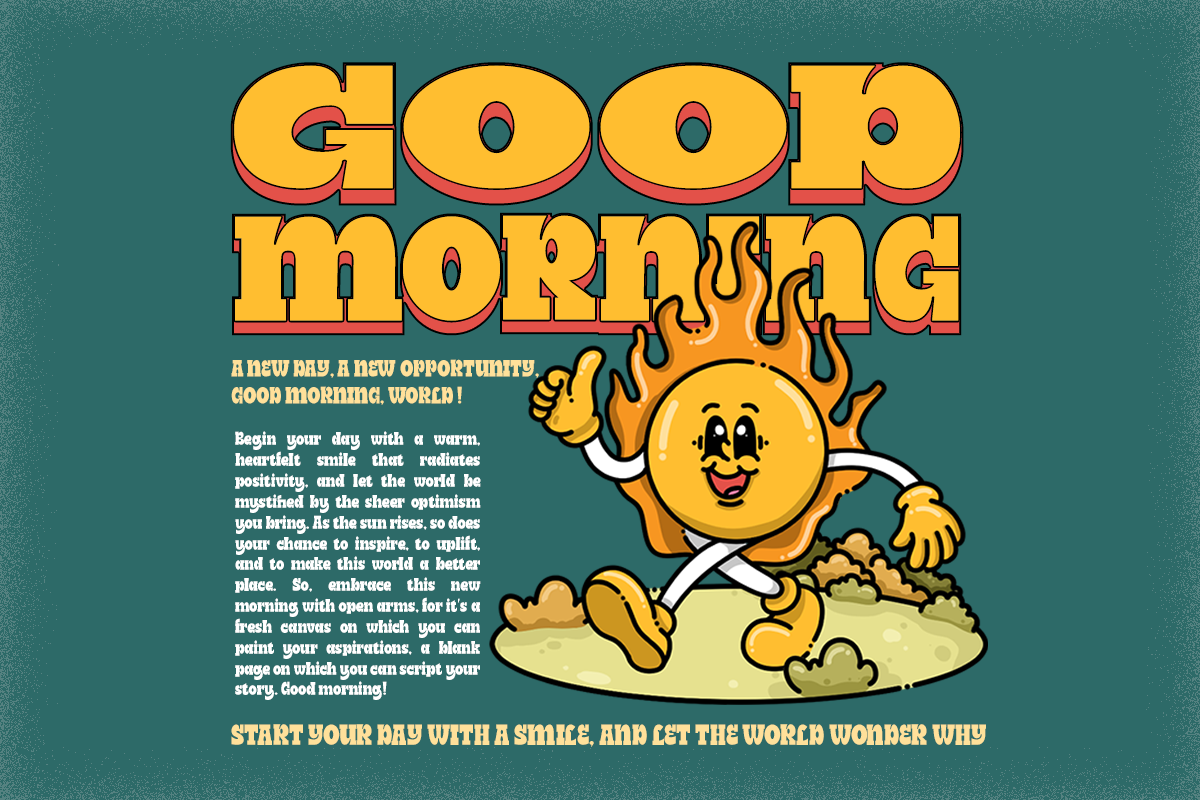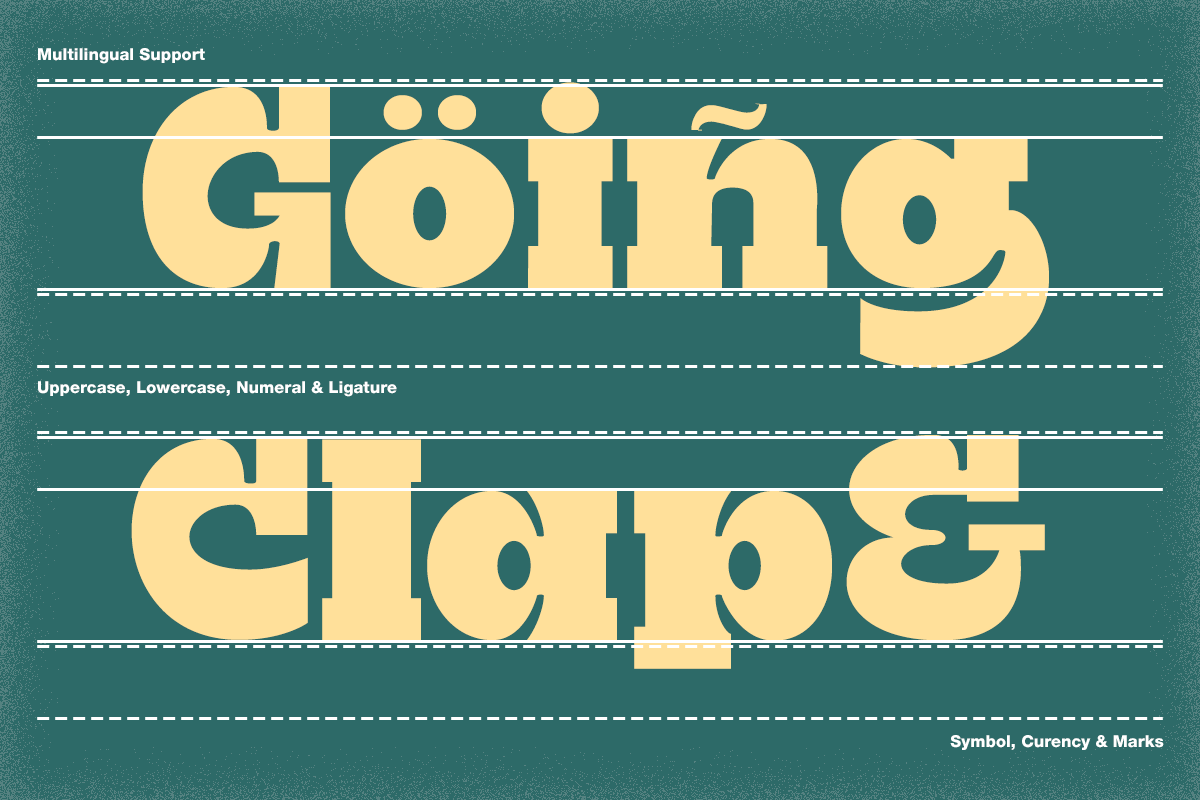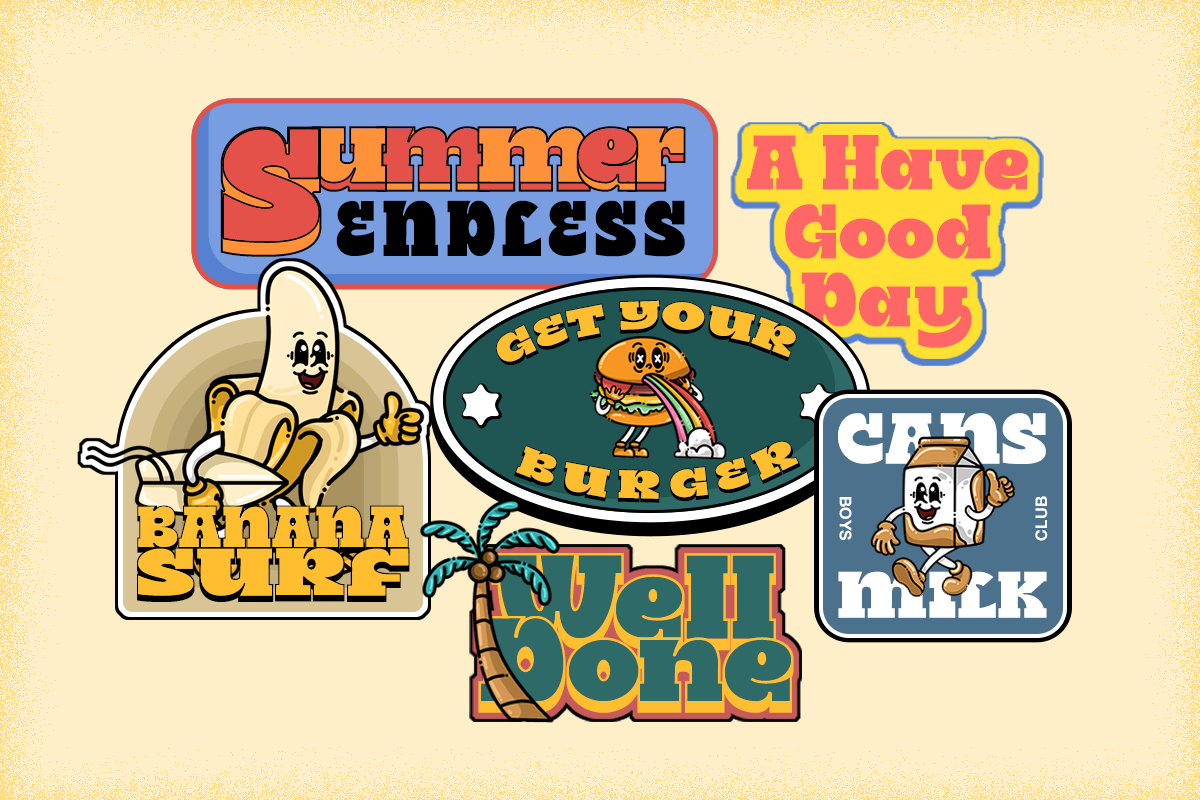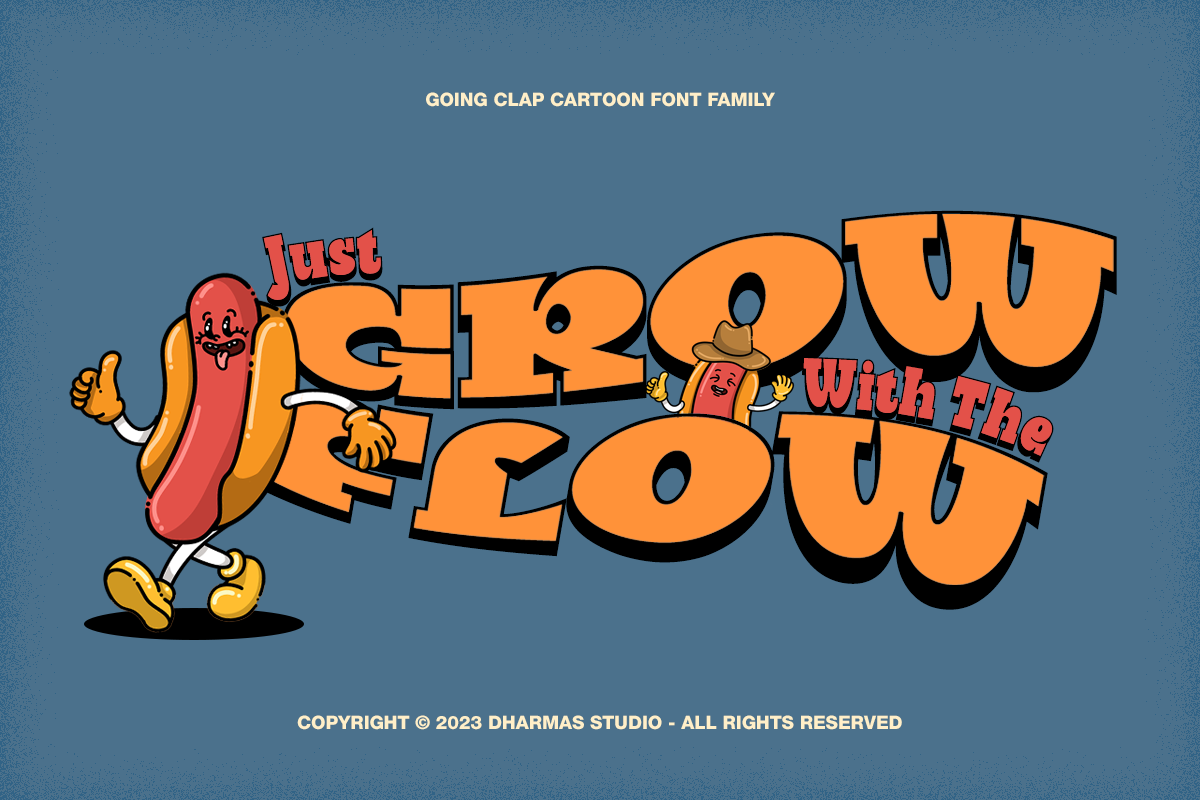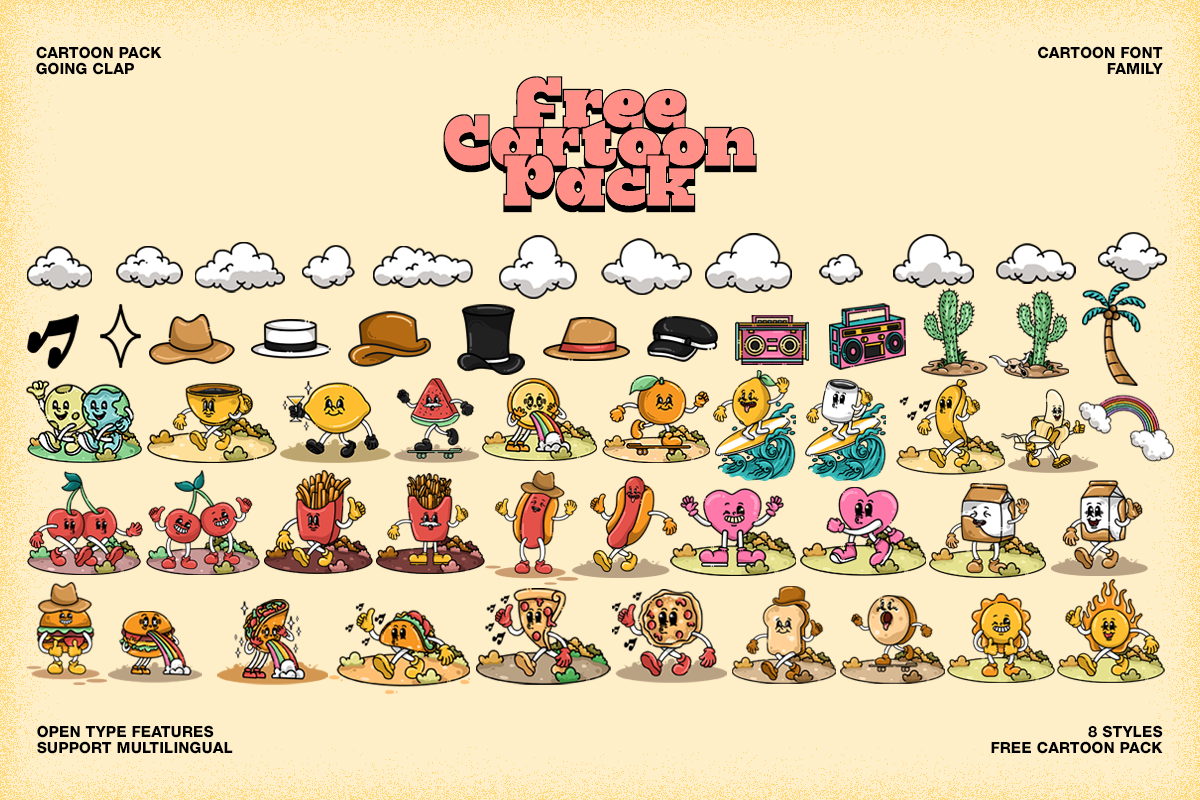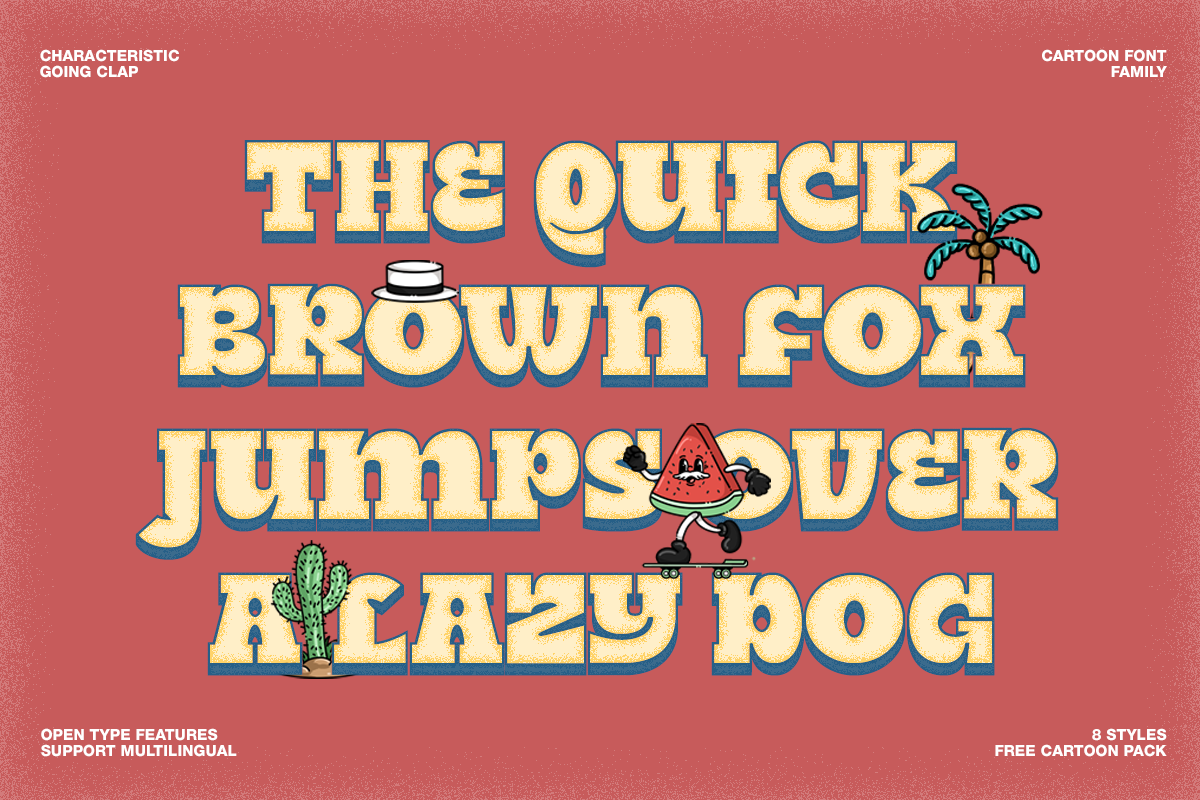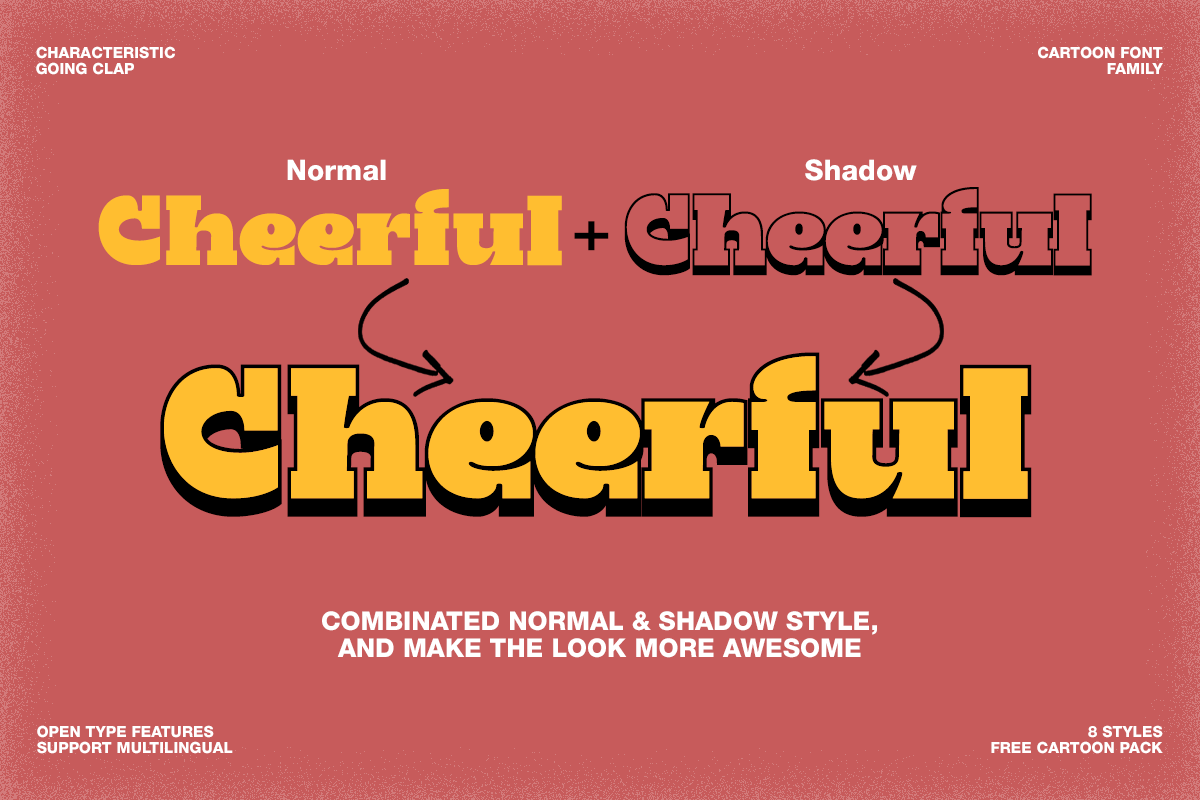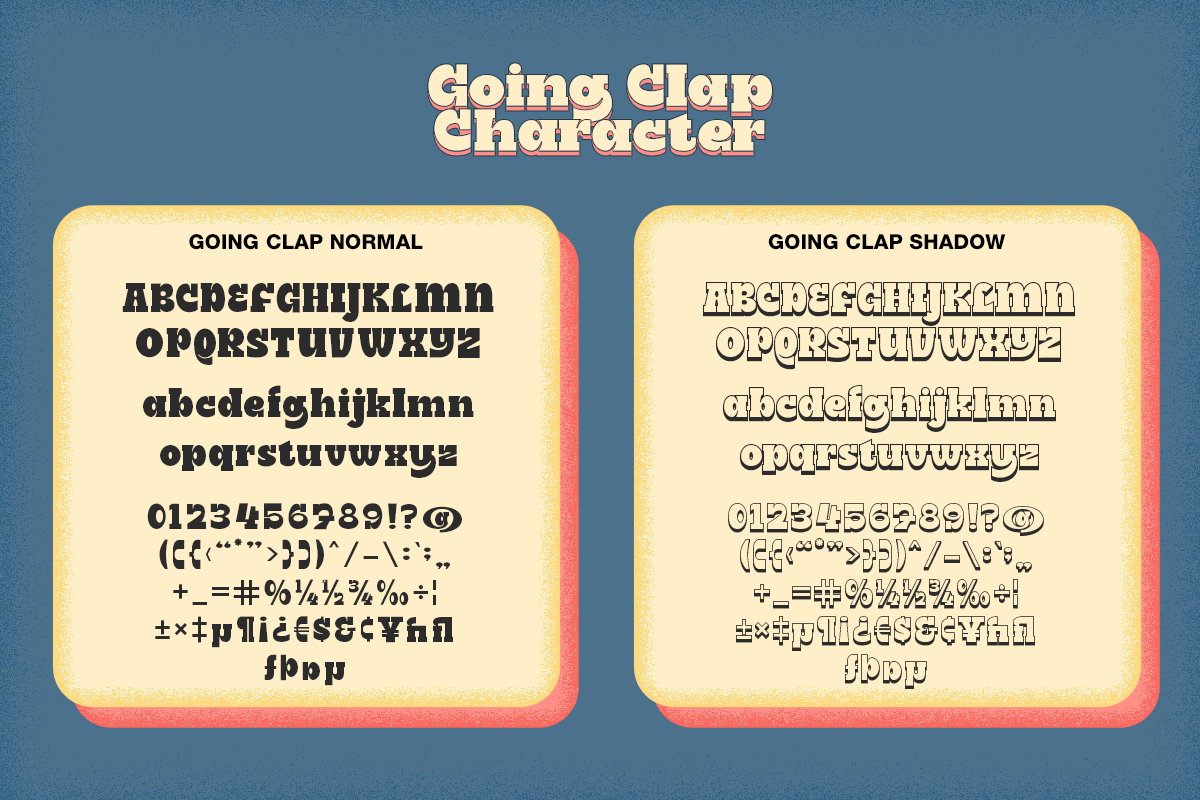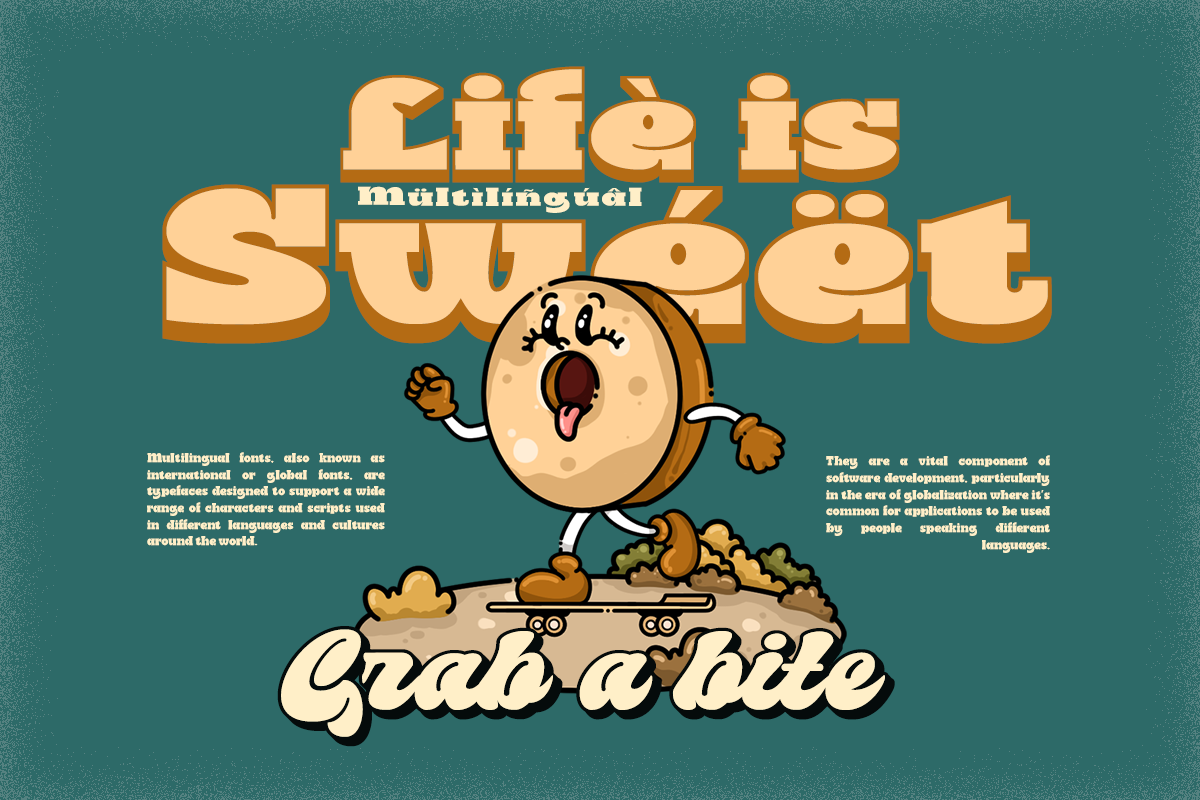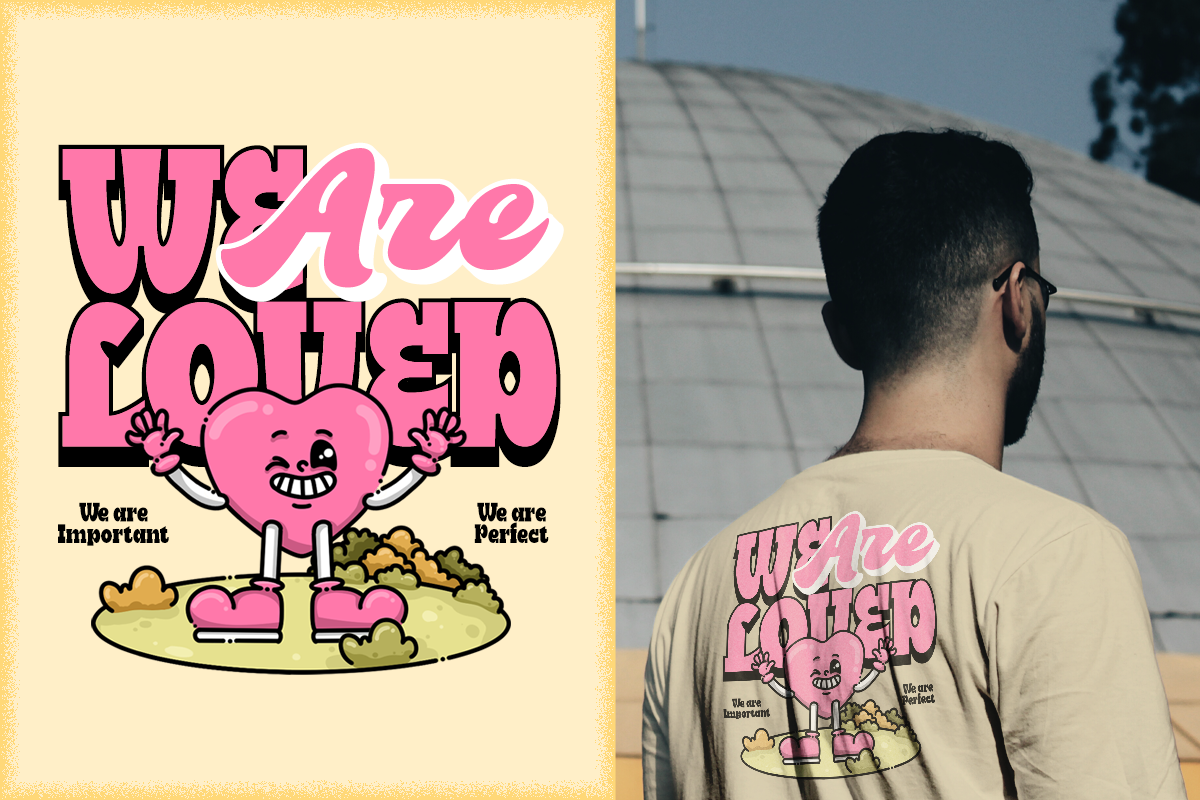
Going Clap - Free Bonus Assets
Introducing Going Clap, the font that's all about bold and nostalgic vibes!
This chunky slab serif typeface is your secret weapon for making text pop with artistic and vintage flair. With 8 unique font families, including Condensed, Normal, Semi Expanded, and their cool shadow versions, you'll find the perfect style for any project.
But that's not all! When you choose Going Clap, you'll also get a fantastic bonus—56 retro mascot illustrations for that extra touch of character and nostalgia.
- Has 8 fonts: Condensed, Normal, Semi Expanded, Condensed Shadow, Normal Shadow, Semi Expanded Shadow, Expanded Shadow
- Unique Letterforms